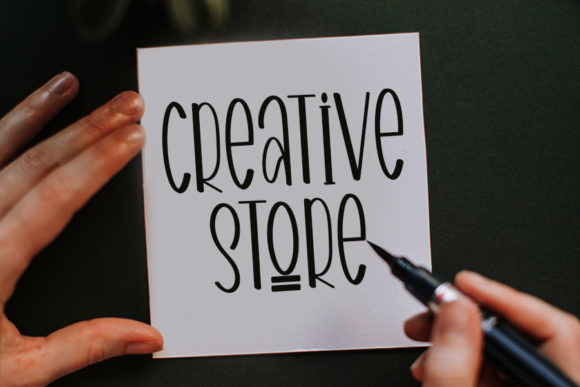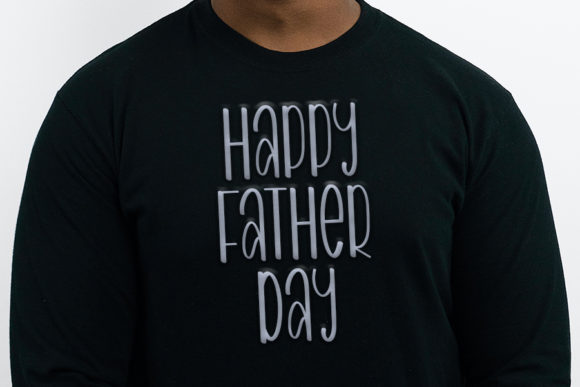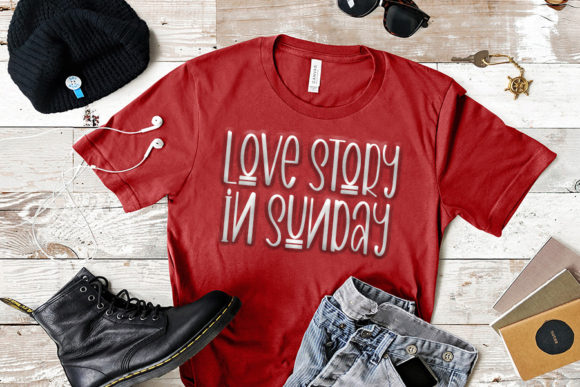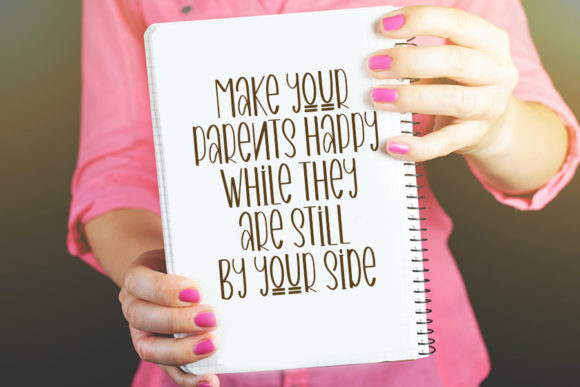
Introduction to Hello Father Font
Hello Father is a simple and casual handwritten font.
It is the perfect fit for flyers, mockups, logos, banners, and crafts .